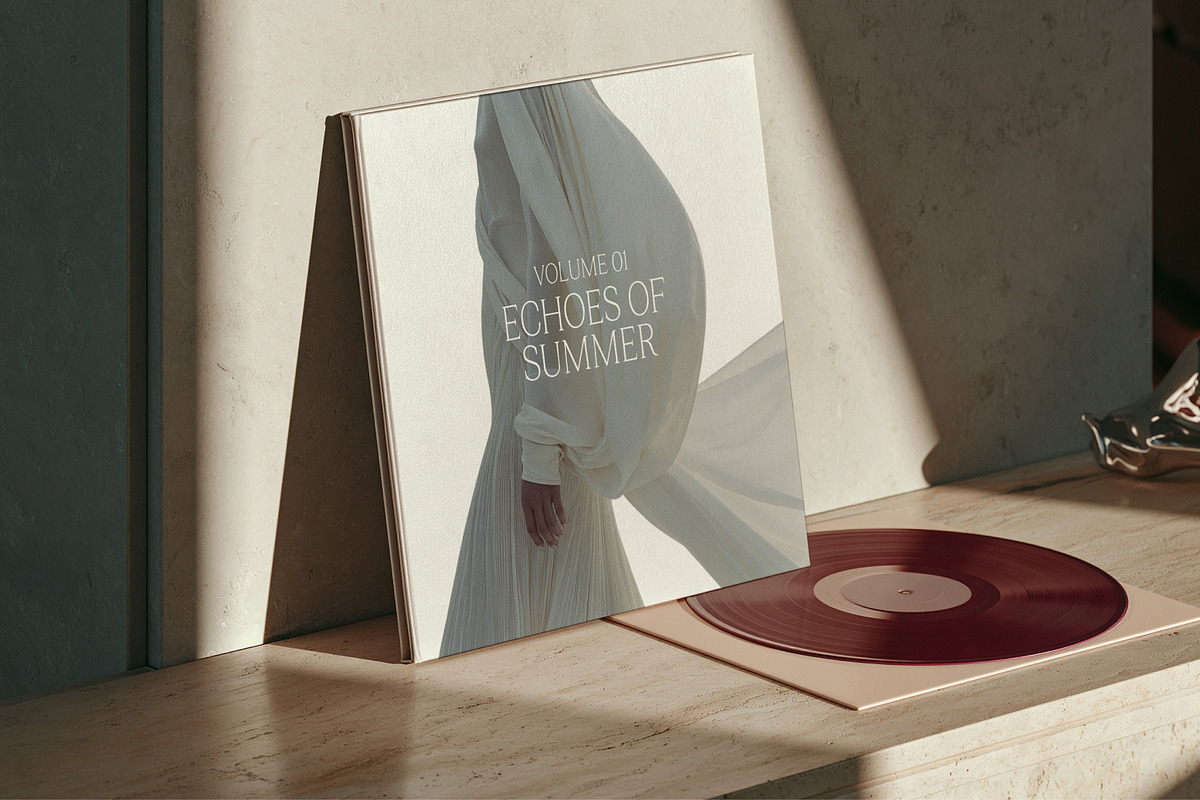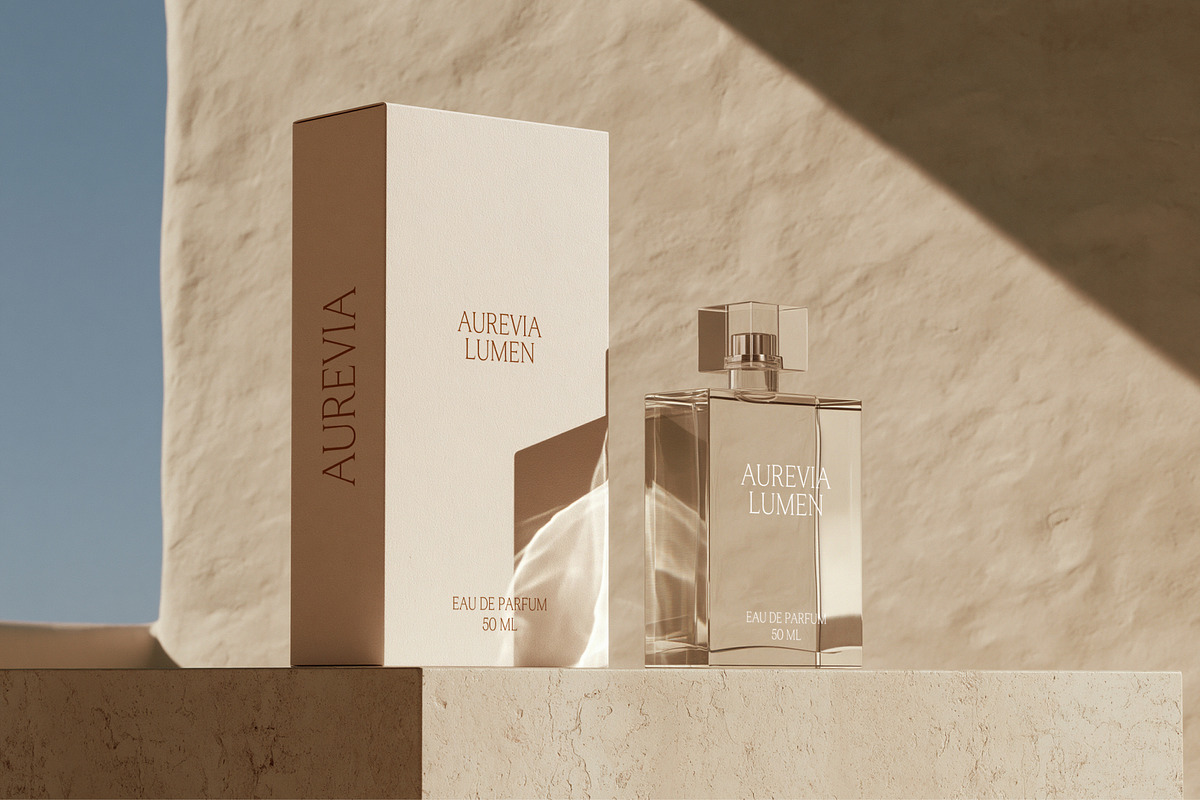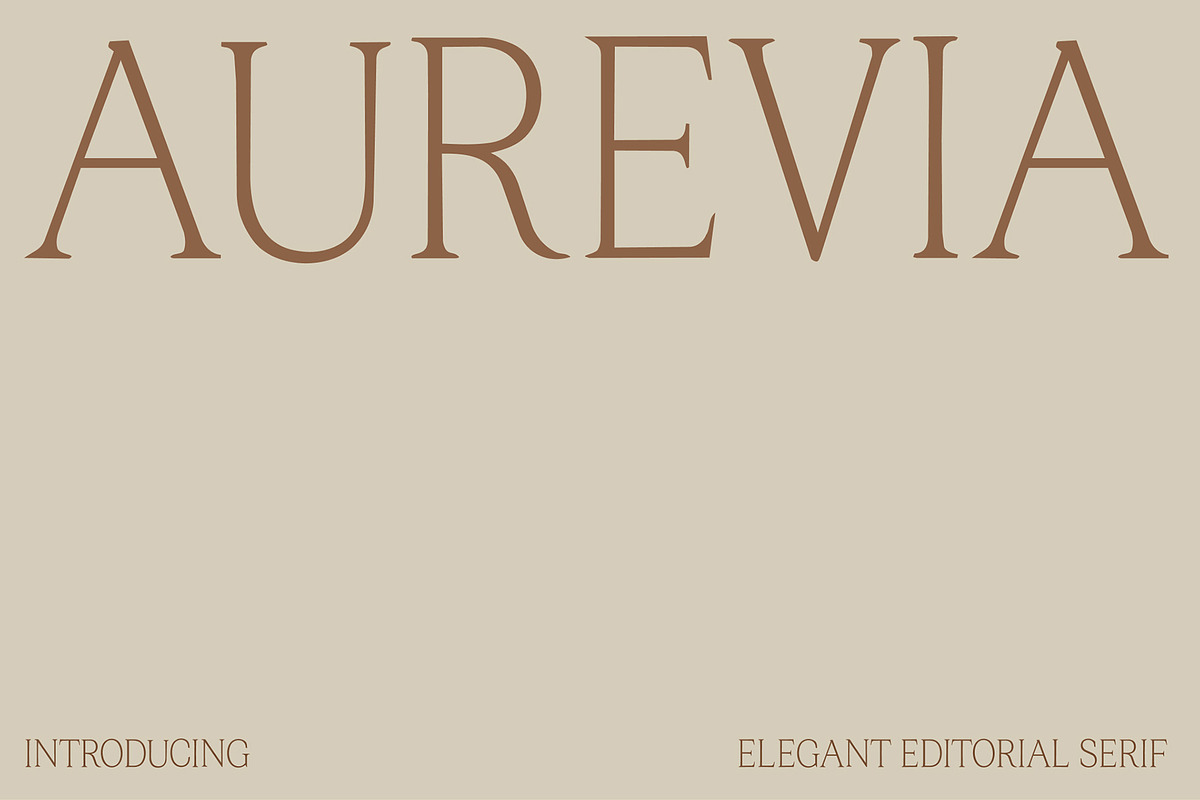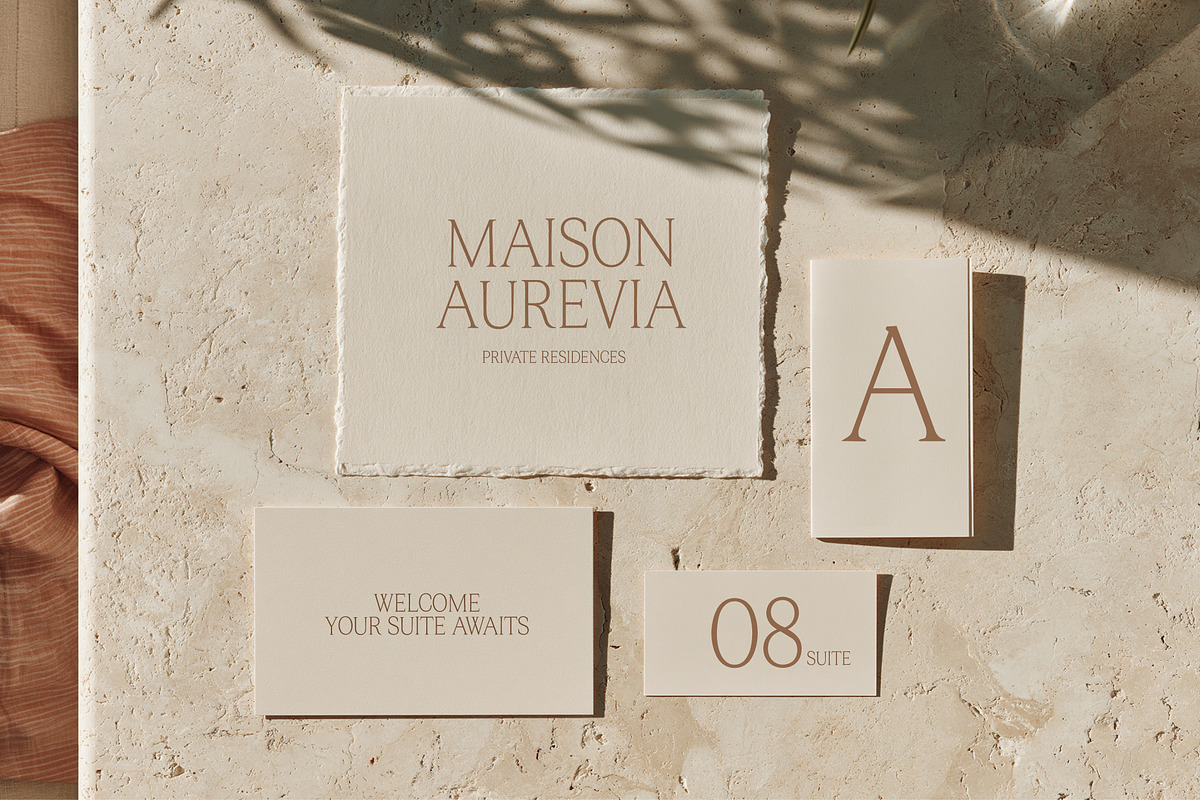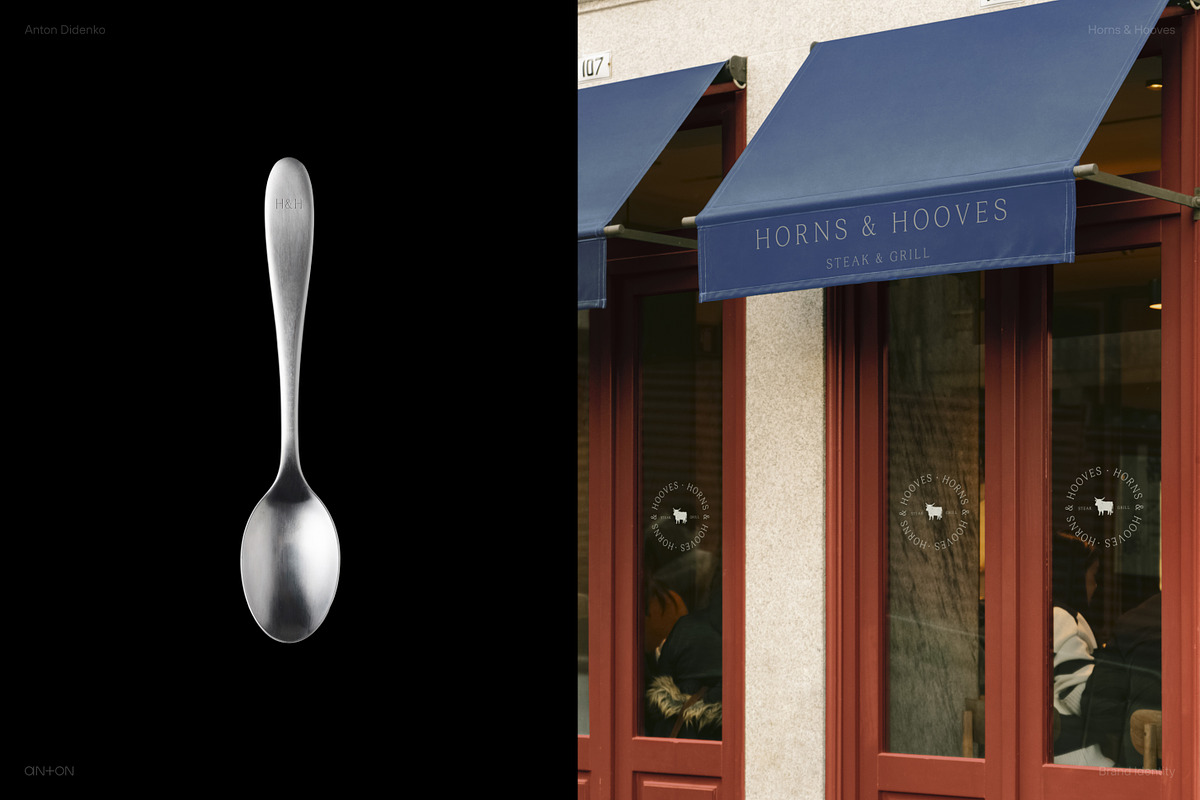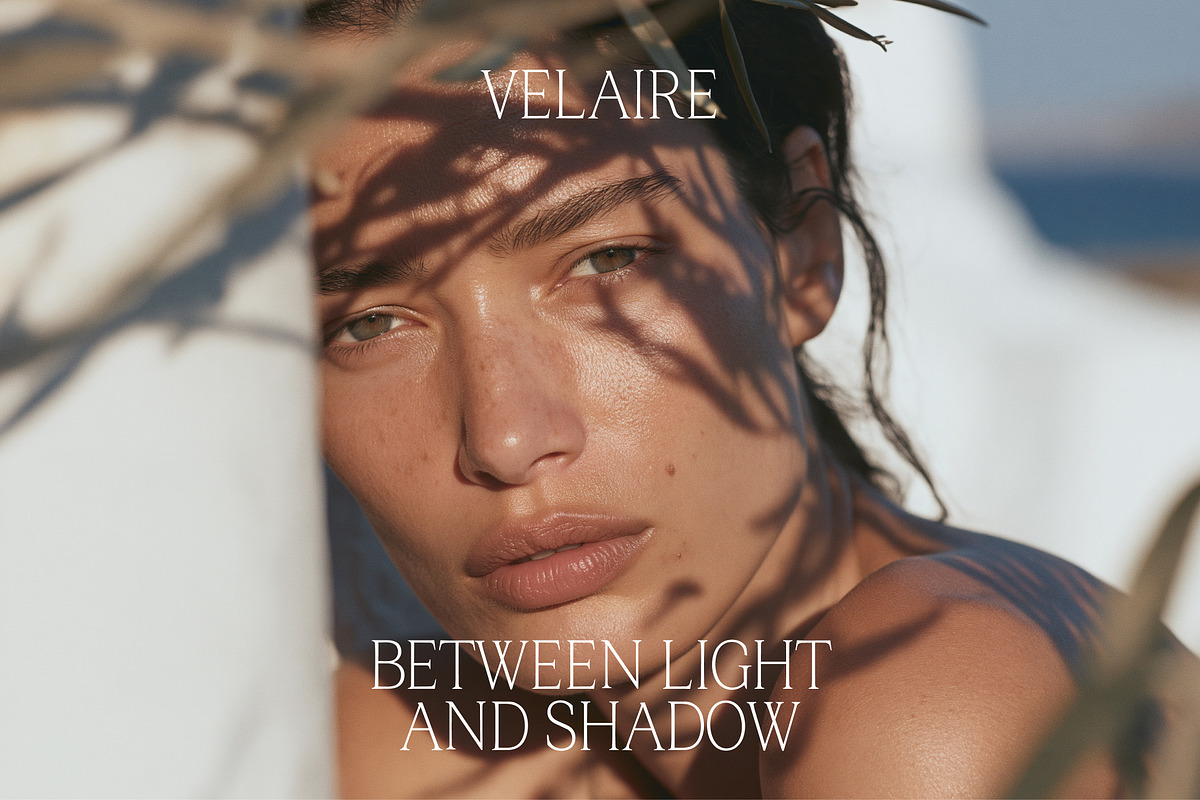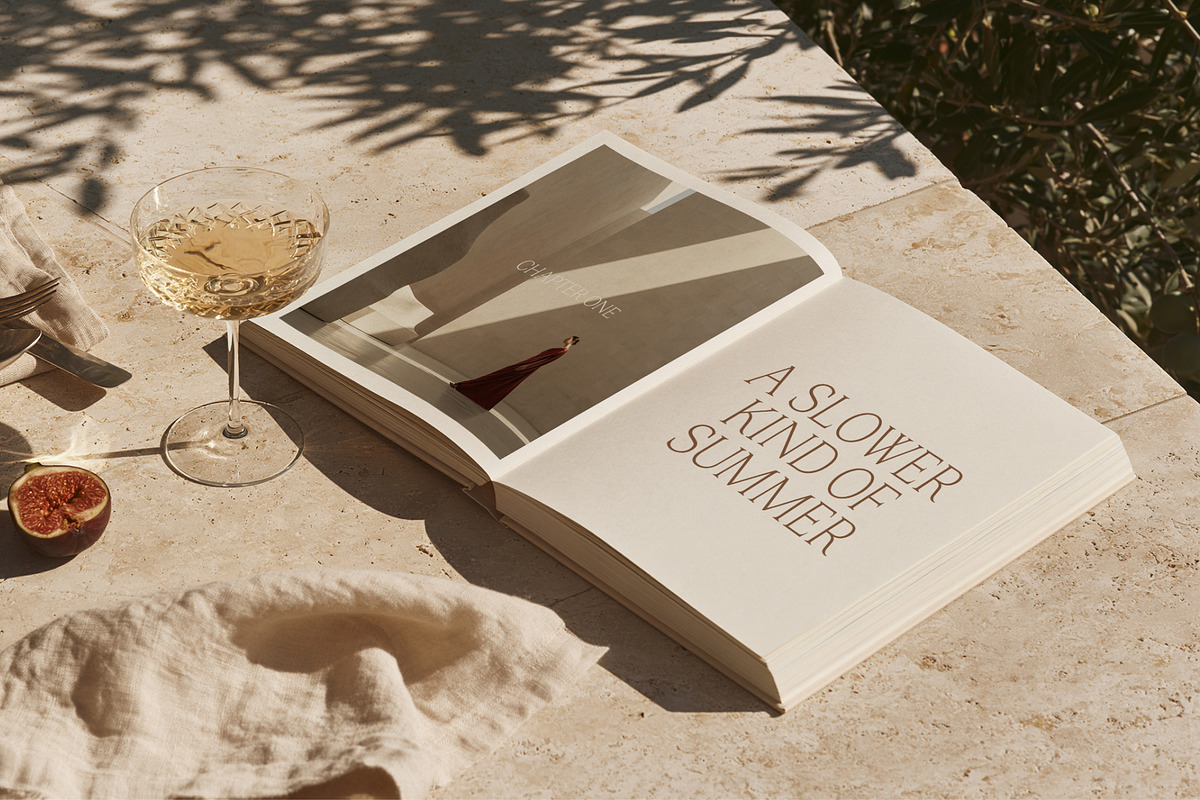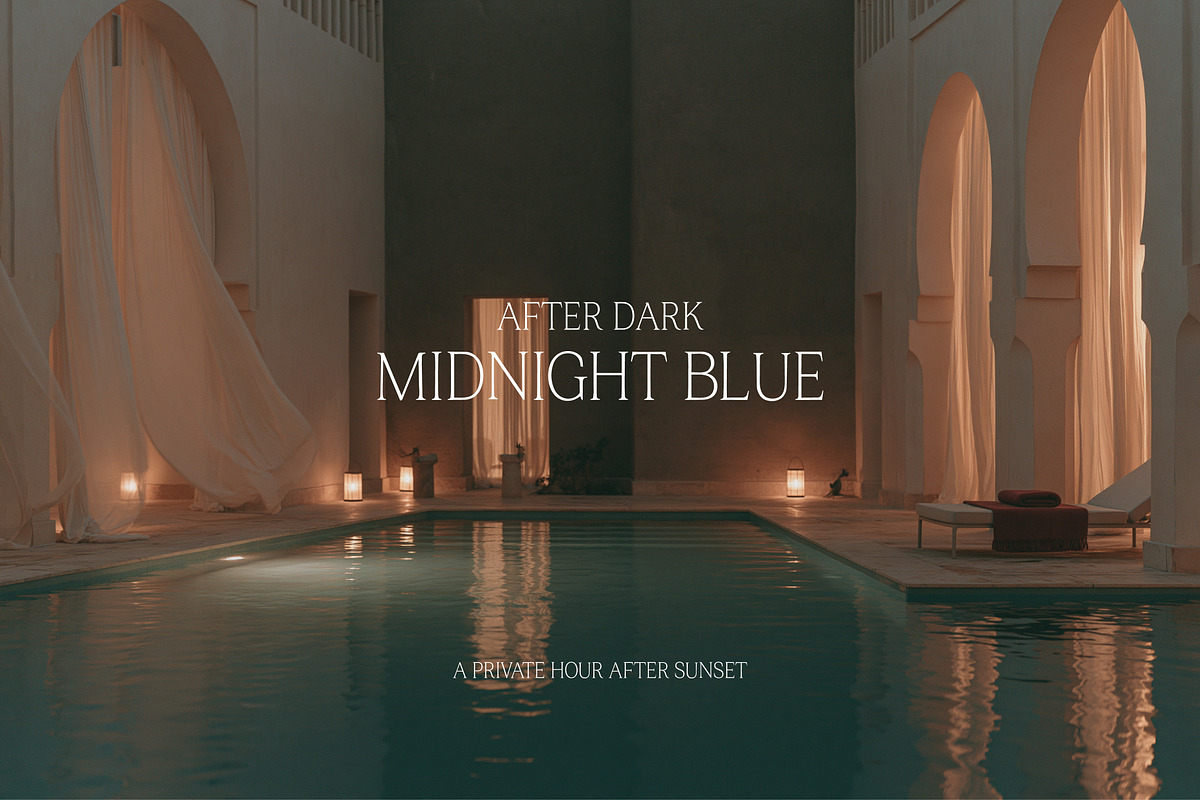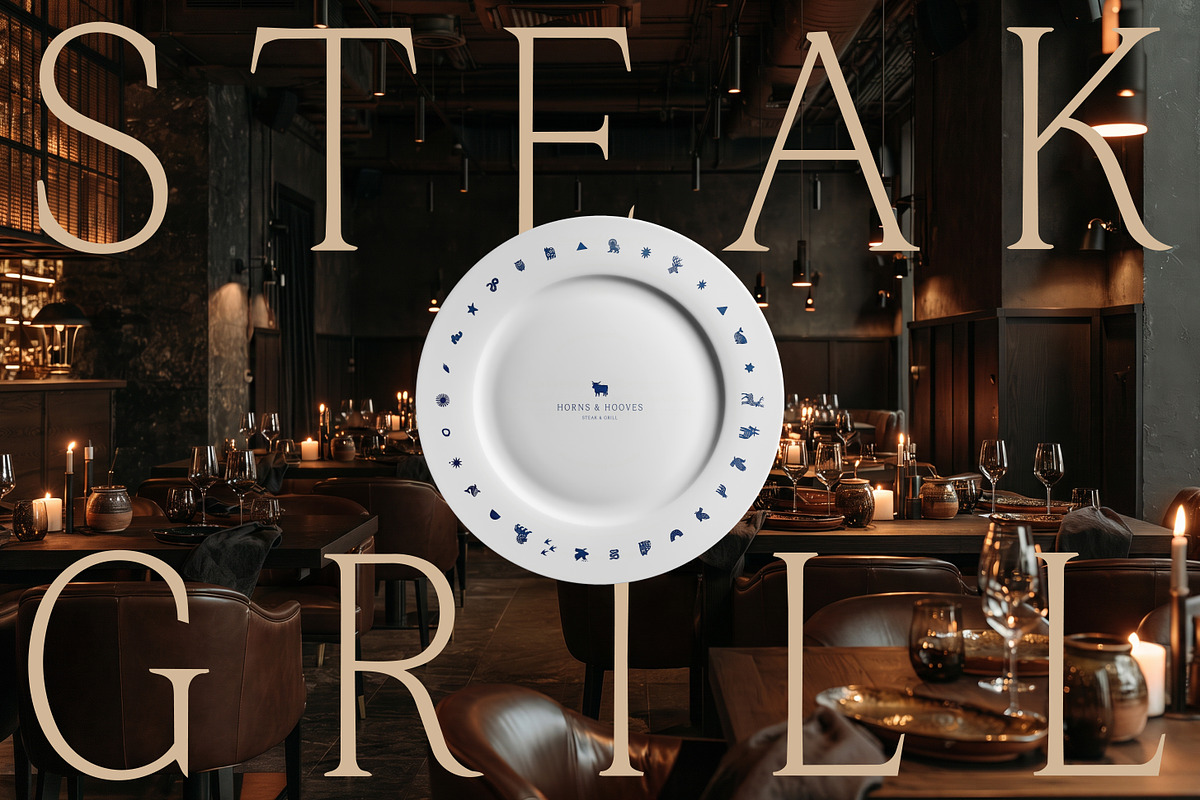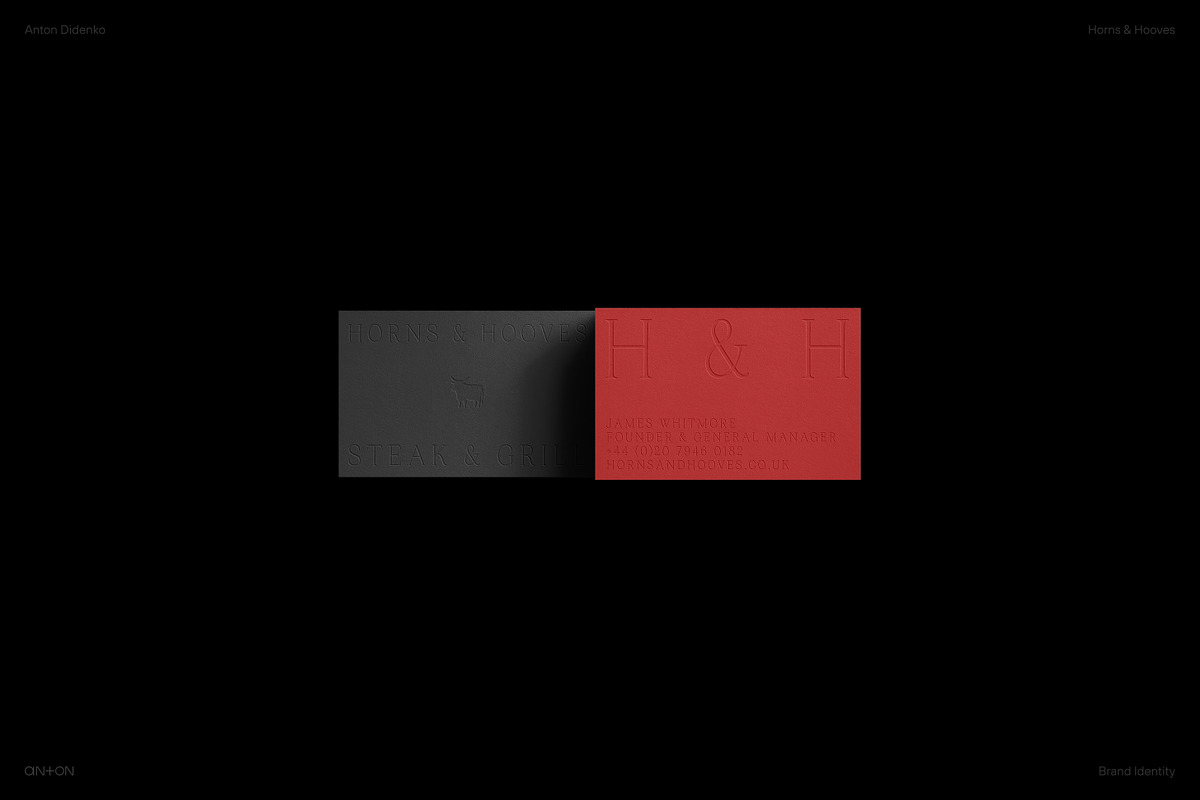
Aurevia Serif contemporary elegance.
Aurevia is a refined editorial serif where classical proportions meet contemporary elegance. Graceful curves, sculpted serifs and balanced contrast give the typeface a sophisticated yet approachable character.
Designed for premium brand identities, magazine titles, packaging, fragrance and beauty projects, hospitality concepts, invitations, art books, menus and elegant digital layouts. Aurevia works especially well at large display sizes, where its distinctive letterforms can fully express their character.
Uppercase and lowercase English alphabet
Numerals and standard punctuation
Extended punctuation and common symbols
Currency symbols
Optimized for headlines and display typography